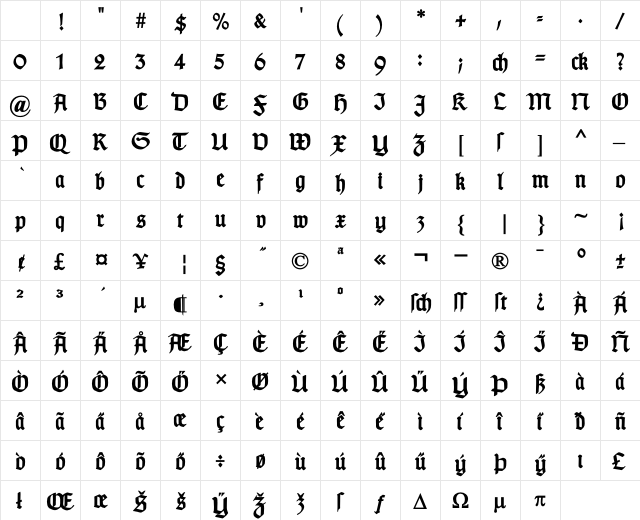
Complete TypographerGotisch C Bold glyph index. Displaying only characters natively supported by TypographerGotisch C Bold font.
TypographerGotisch C is a composed and adaptable typeface that performs quietly and consistently across a wide range of design contexts. Its bold stroke weight gives it real presence on the page.